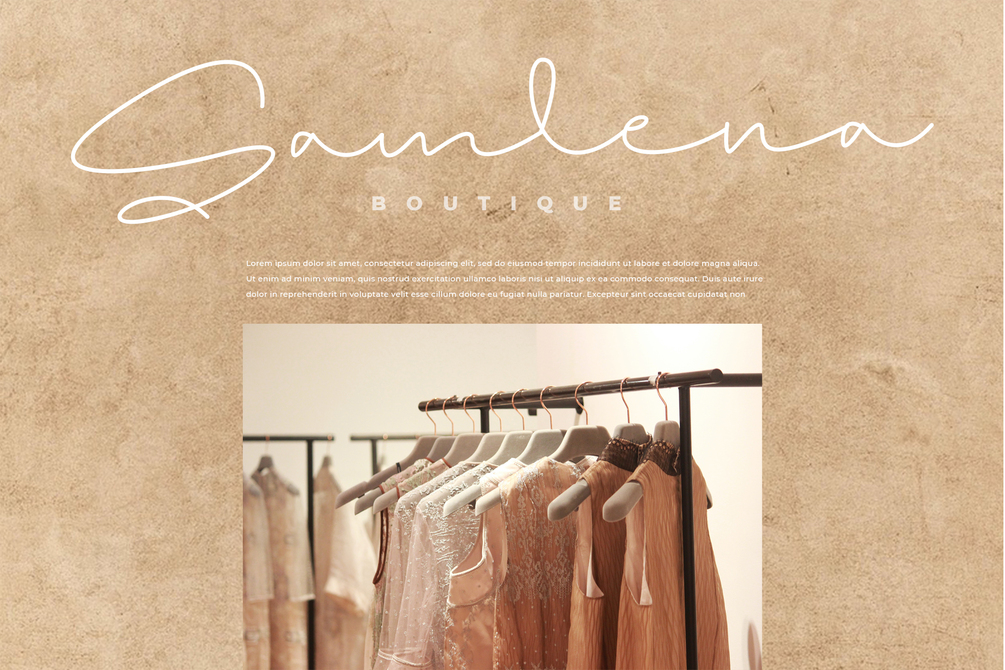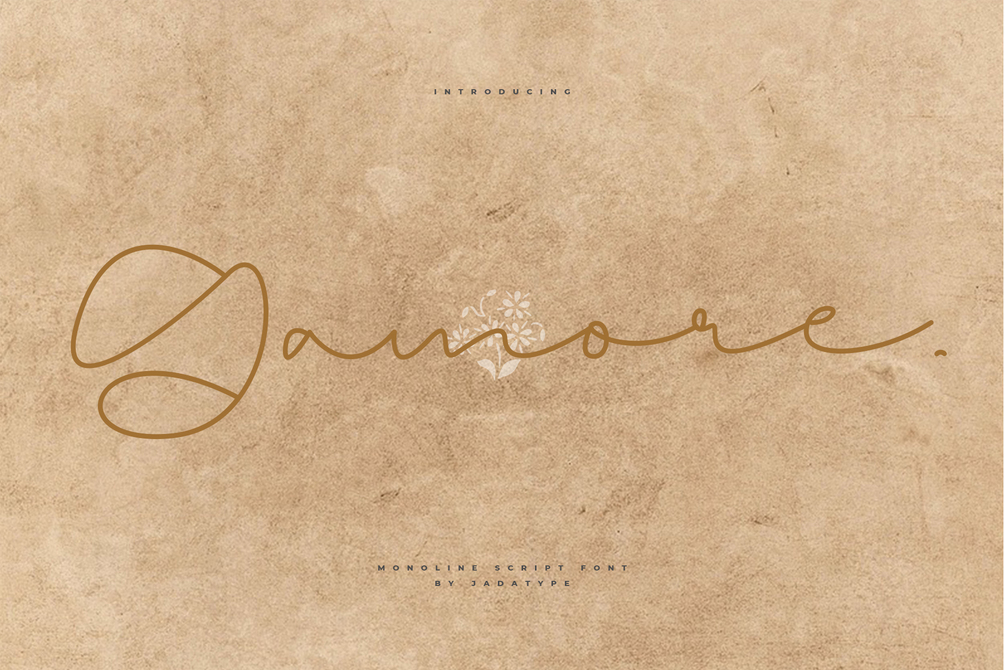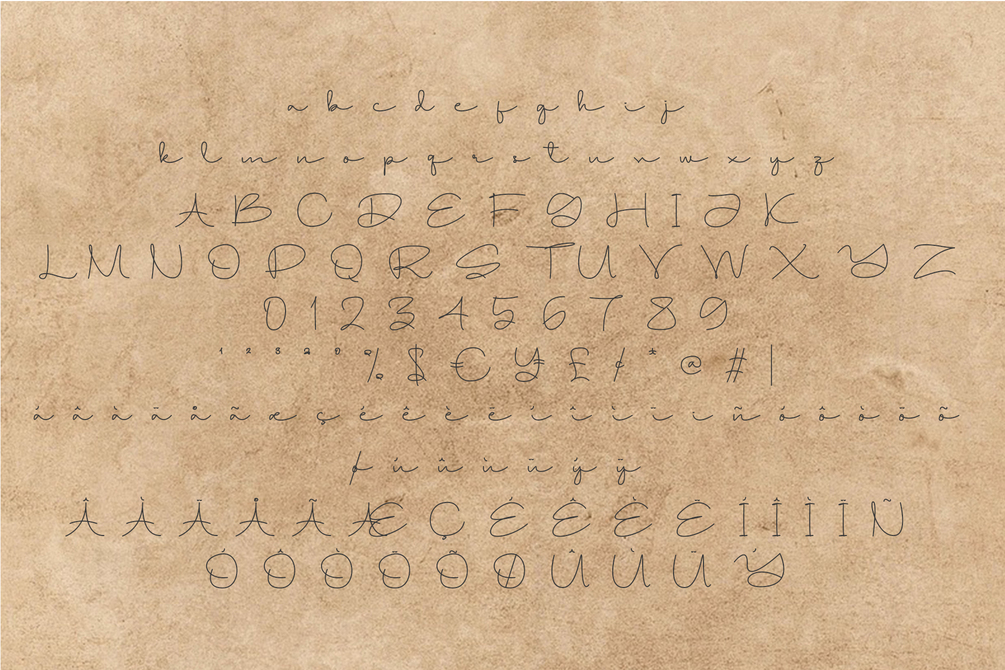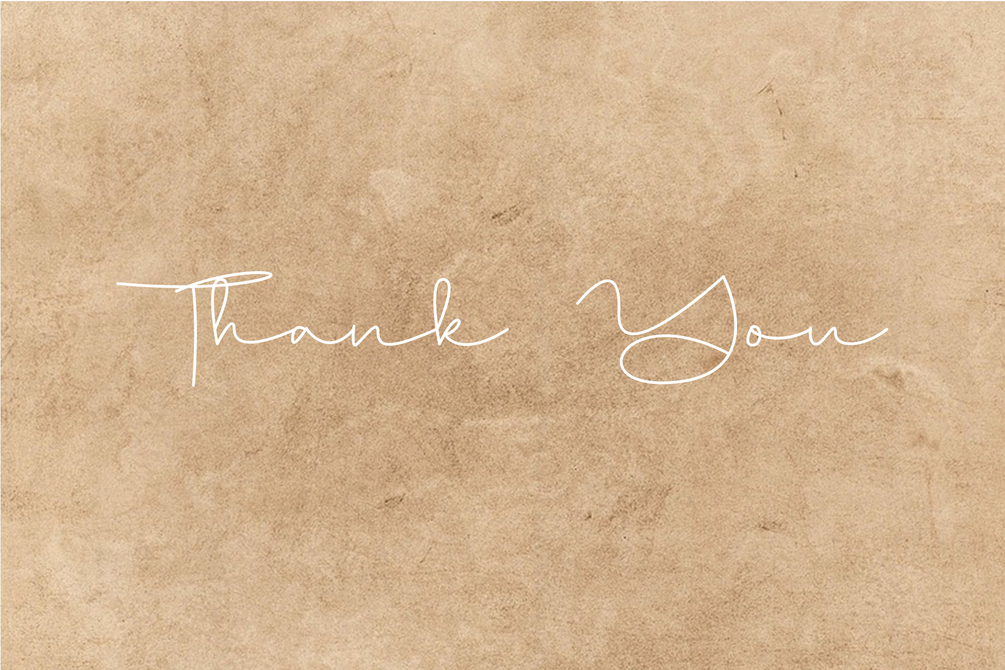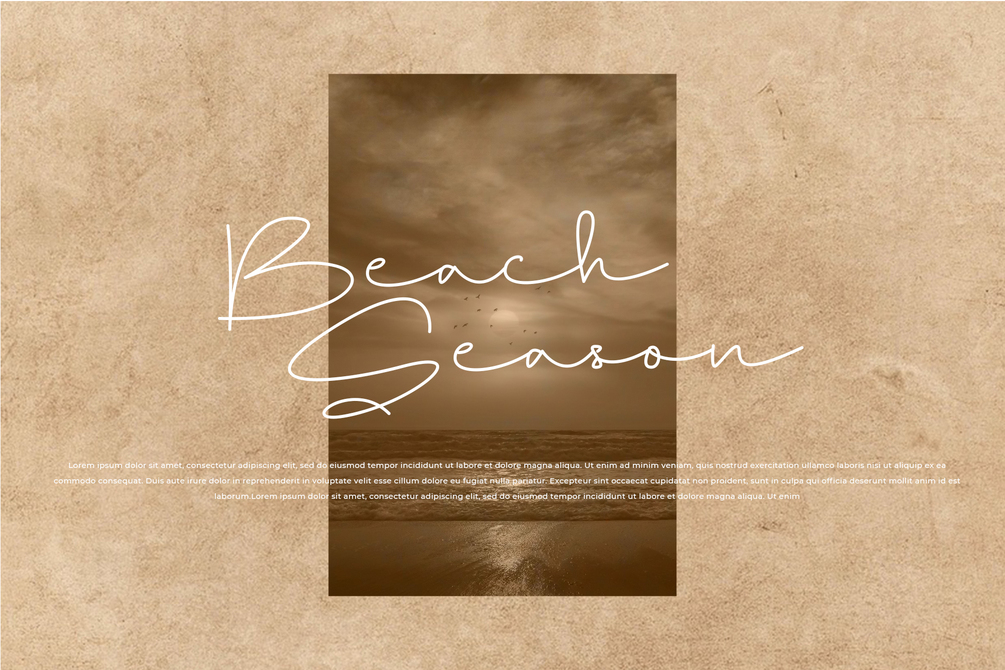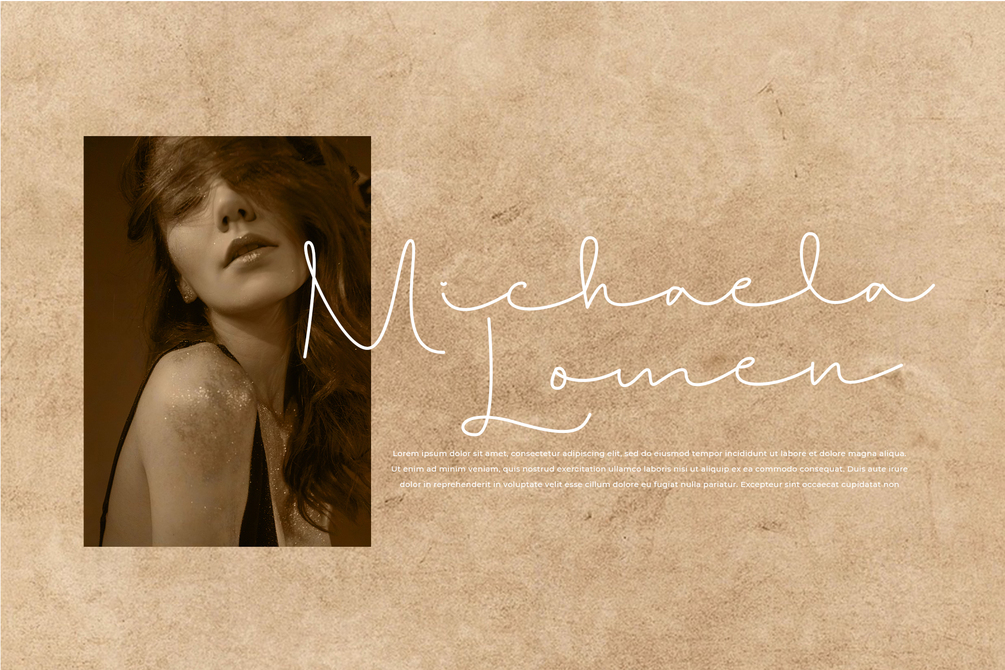
Gamore Font
Gamore is a font with a stylish monoline. suitable for logotype, branding, music cover, social media, products, handwritten, and so on. contains standard English letters, numbers, punctuation, and several accents that support multilingualism.